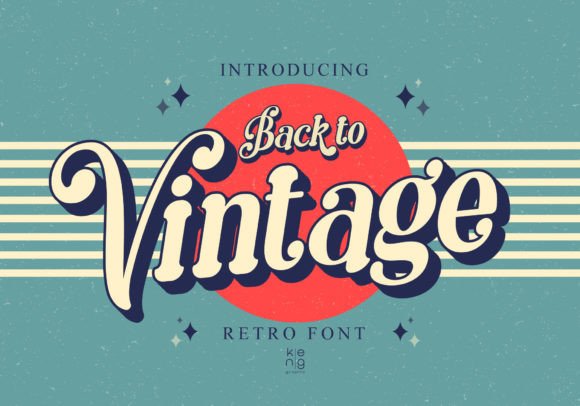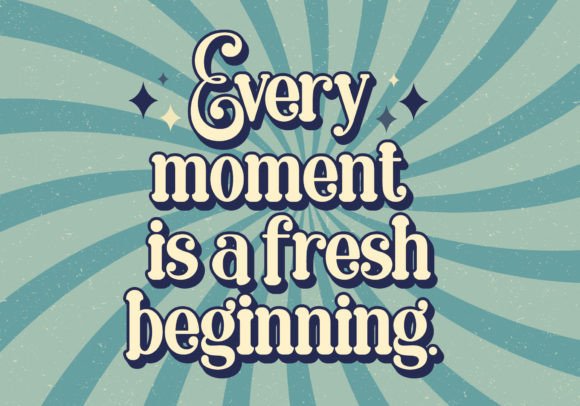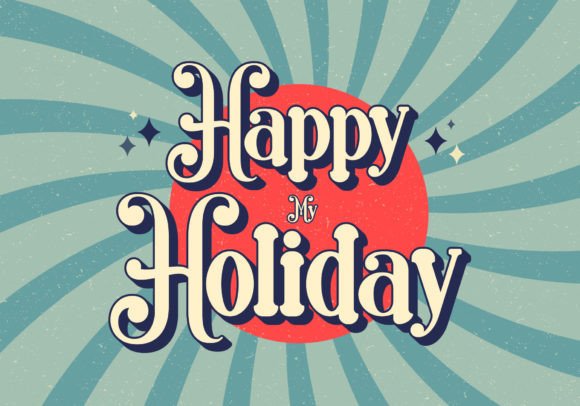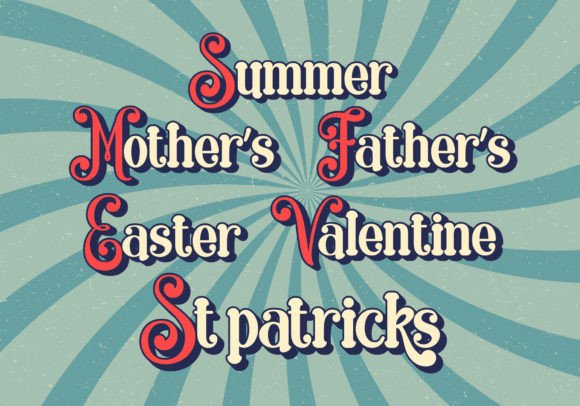
Back to Vintage Font
About the Back to Vintage Font
From logos to headlines, the Back to Vintage Font is the perfect choice for making a lasting impression. Back to vintage font is a vintage-style retro font. Inspired by the retro typography and typography of the 60s 70s and 80s, anything written in this font is instantly recognizable and will grab attention. It has a unique shape where every corner is softer and more rounded. Use this display font to add a special retro touch to any design idea you can think of.
This font excels in headline applications, short impactful statements, logos, and posters where its retro charm can shine. It’s ideal for branding projects aiming for a nostalgic, playful feel, particularly for businesses related to music, fashion, or vintage products. Avoid using it for extensive body text or UI elements; the rounded forms can reduce legibility in smaller sizes or long passages.
Pair Back to Vintage with a clean sans-serif like Helvetica Neue for a balanced contrast, or a geometric sans-serif for a modern twist. A classic serif like Garamond could also work for a sophisticated, vintage-modern pairing, offering readability to complement the display font’s boldness. Avoid pairing it with other highly decorative or script fonts, which would create visual clutter.
Back to Vintage possesses a bold yet friendly personality. Its rounded forms soften the retro aesthetic, preventing it from appearing overly harsh or aggressive. The font’s overall mood is energetic and approachable, making it a great choice for brands seeking a nostalgic yet contemporary feel.